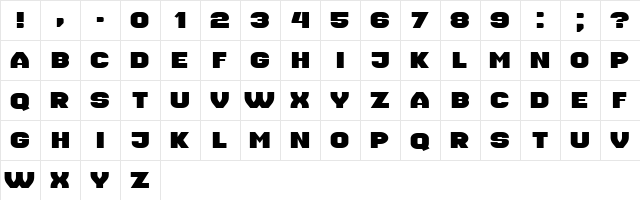
Housebreak Extended
Design Context for Housebreak Typeface
Housebreak takes a measured approach to typography — its balanced proportions and neutral character make it a reliable workhorse for both digital and print work.